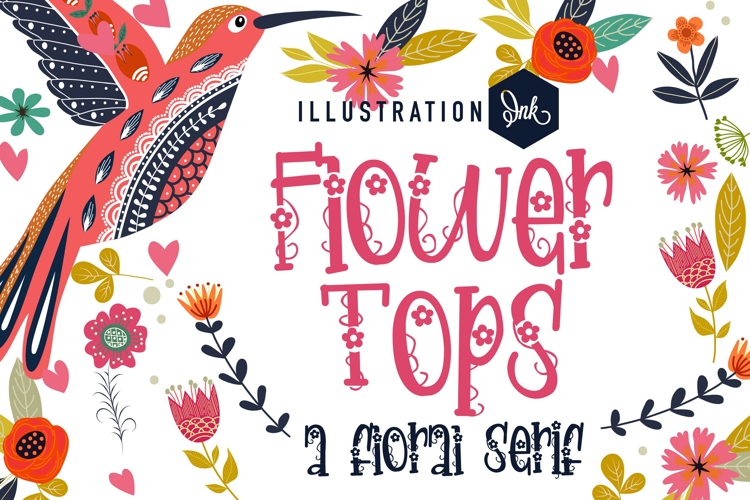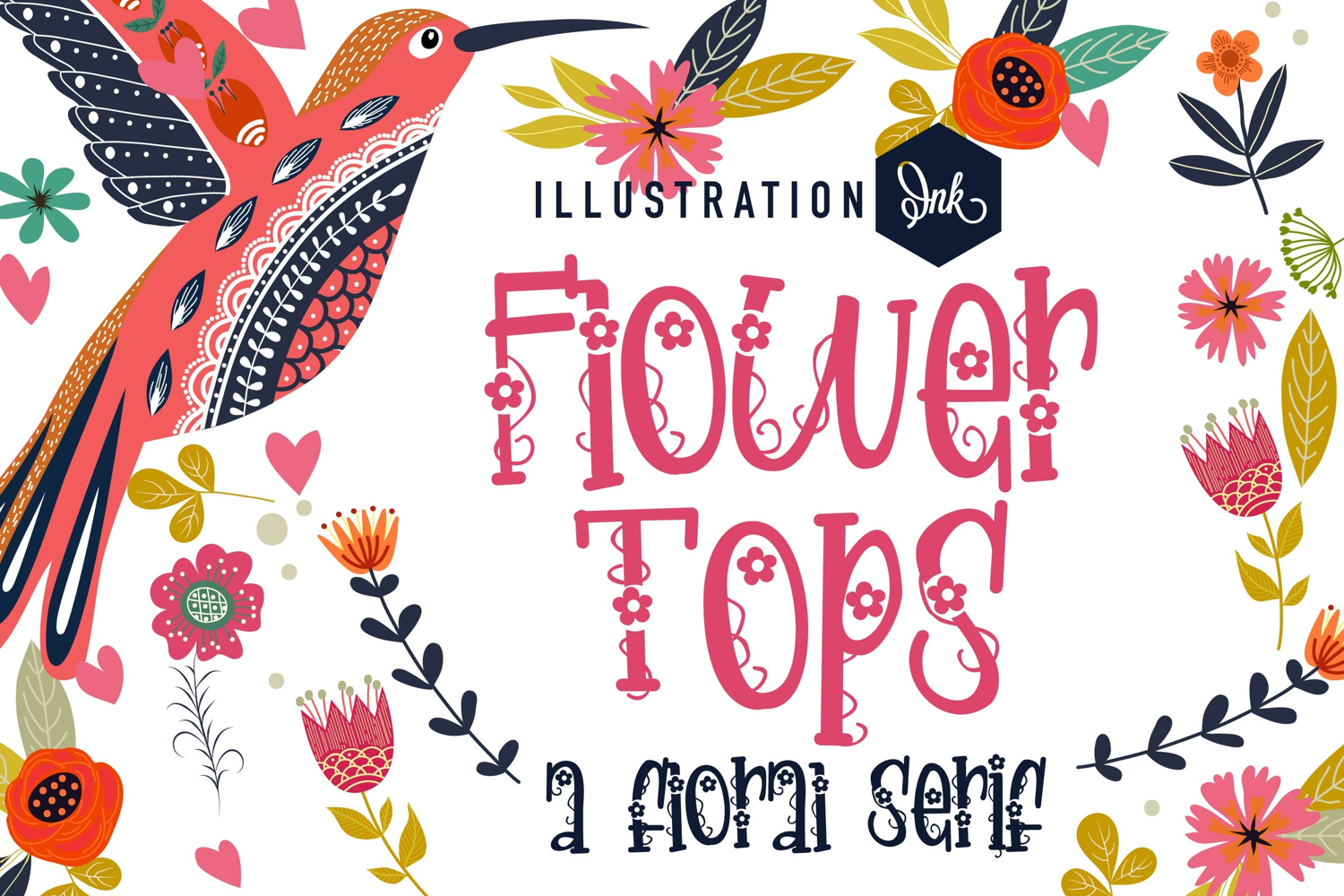
Flower Tops Font Family
This hand-crafted font is a whimsical, hand-crafted font with adorable bloom throughout. Some family members have vines as well.